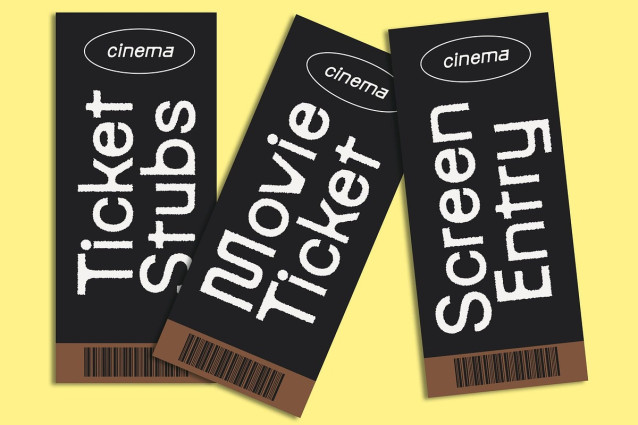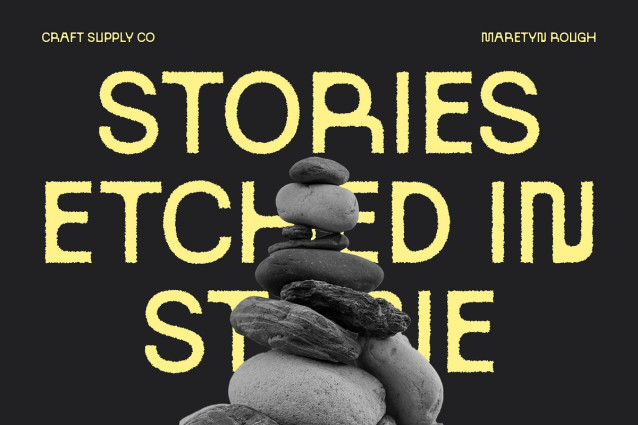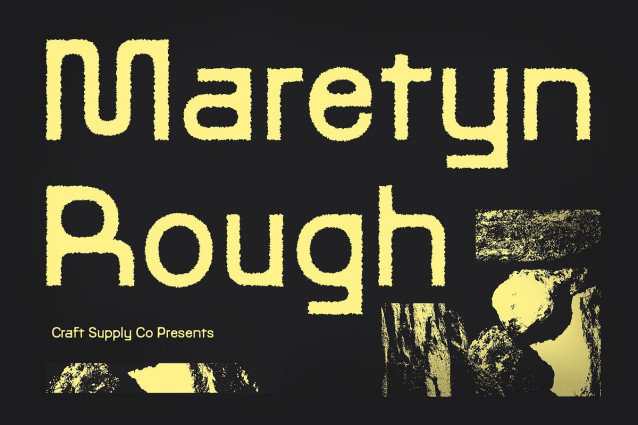
Maretyn Rough Font
Maretyn Rough Font is a modern sans-serif font that artfully merges grotesque and geometric design principles. With balanced proportions, clean construction, and a structured aesthetic, it delivers a solid and contemporary appearance ideal for design projects that demand both functionality and style.
Rough Texture for Distinctive Character What sets Maretyn Rough apart is its textured, rough effect—adding a layer of boldness and edge to its otherwise sleek design. This weathered texture brings a handcrafted feel, perfect for adding depth and personality to modern visuals without sacrificing legibility.
Clean Yet Striking Aesthetic The sharp letterforms and well-crafted outlines make Maretyn Rough a reliable choice for maintaining clarity, even when used in bold, expressive layouts. Its contemporary look is elevated by the textured detail, offering a refined yet rugged tone that resonates in today’s visual culture.
Ideal for Strong, Modern Visuals Whether used in branding, posters, digital headers, or packaging, Maretyn Rough provides a compelling balance between modern minimalism and artistic texture. It’s a go-to choice for designers looking to create bold impressions with clean lines and character-rich flair.